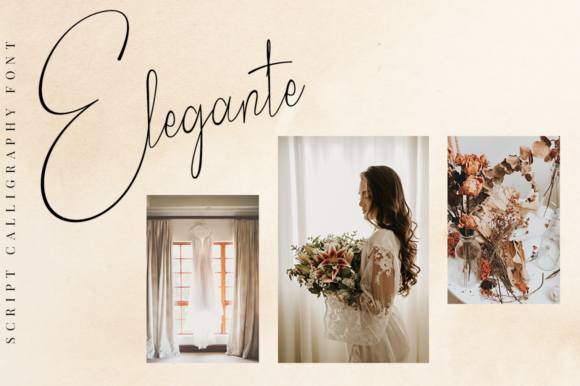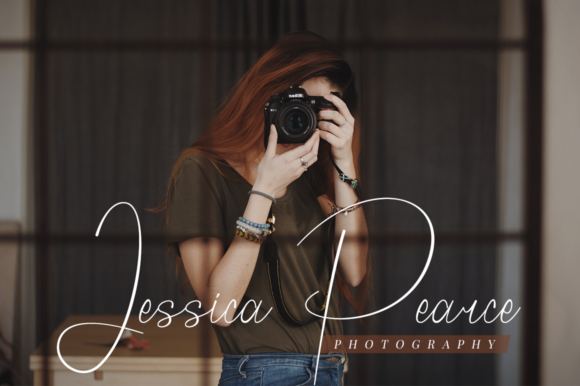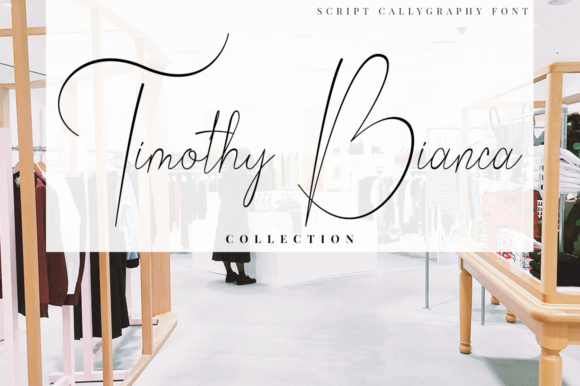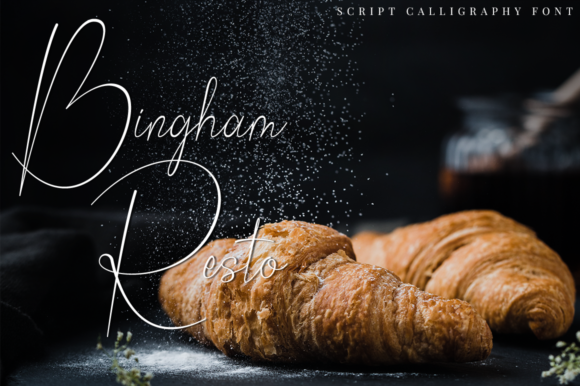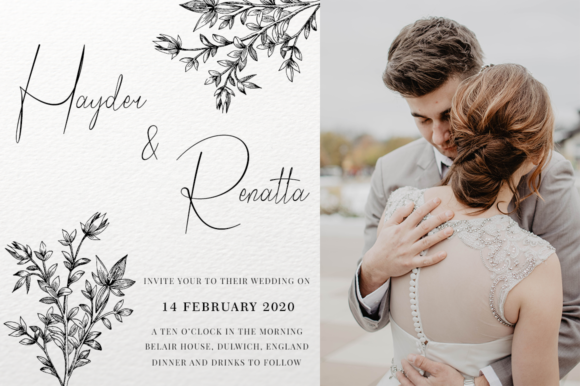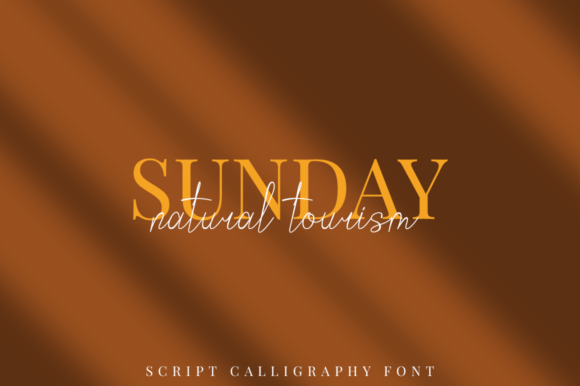
The Bordershine Font: A Playful, Handwritten Gem
I’ll never forget the design project that led me to discover the Bordershine font. I was working on a whimsical craft project for a client who wanted a custom, handmade look. As I scrolled through font after font, nothing seemed quite right – until I stumbled upon Bordershine. Its unique, calligraphic style instantly captured my attention, and I knew I had found the perfect fit. In this article, I’ll share my experience with Bordershine, its features, and how to make the most of this beautiful font.
So, what makes Bordershine special? Here are a few things I love:
- ✨ Rich, playful handwritten style with a unique calligraphic flair
- 💫 Supports OpenType features, glyphs, and stylistic alternates for added versatility
- 🎨 Perfect for a wide range of creative projects, from crafts to digital designs
Of course, no font is perfect. A few quirks to keep in mind:
- 🤔 Some users may find the font’s playfulness too informal for certain projects
- ⚠️ Limited availability of extended language support
The Story Behind Bordershine
Bordershine was designed with the intention of capturing the essence of traditional calligraphy in a digital format. The font’s creator aimed to craft a unique, handwritten look that would inspire creativity and add a touch of personality to various design projects. With its rich, playful style, Bordershine has become a popular choice among designers and crafters alike.
| Font Name | Bordershine Font |
| Author | CBRTEXT Studio |
| What makes Bordershine unique? | Bordershine’s unique blend of calligraphic style and playful, handwritten look sets it apart from other fonts. |
| Does Bordershine support OpenType features? | Yes, Bordershine supports OpenType features, including glyphs and stylistic alternates, which can enhance your designs. |
| Is Bordershine suitable for body text? | While Bordershine is highly legible, its playful style may not be ideal for extended body text. It’s best used for headings, titles, or short paragraphs. |